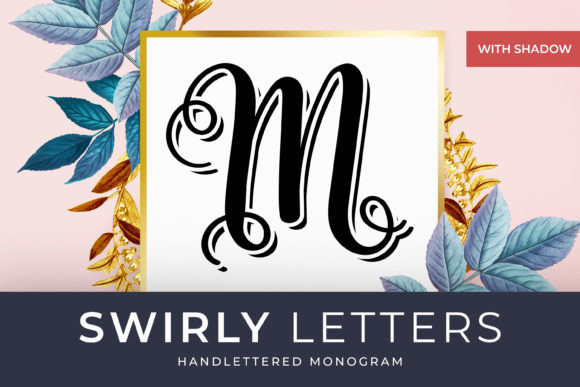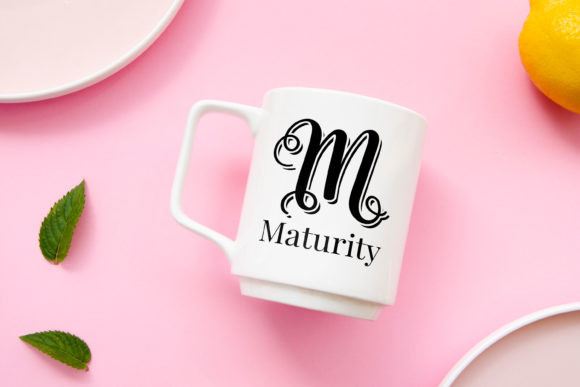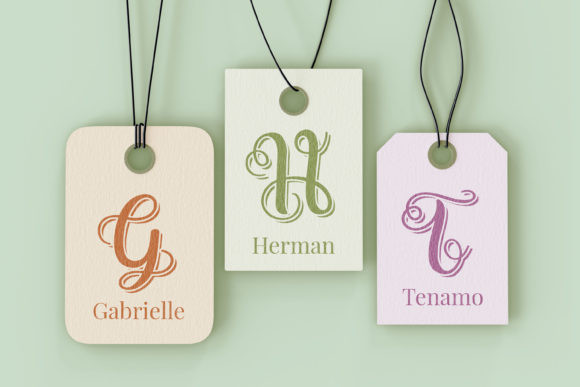
Swirly Letters Font
Swirly Letters is an incredibly distinct, delicate and timeless handwritten font. It looks stunning on wedding invitations, thank you cards, quotes, greeting cards, logos, business cards and every other design which needs a handwritten touch.